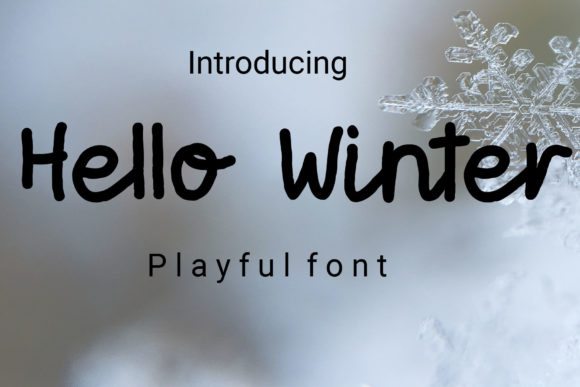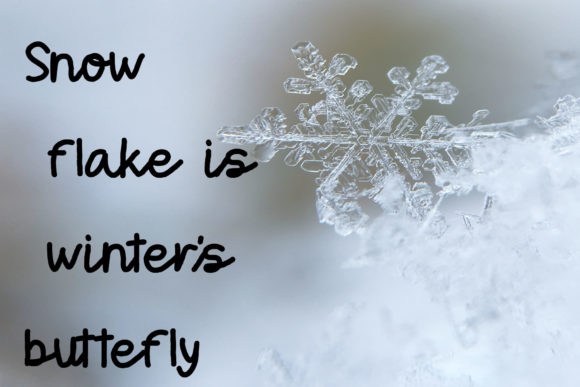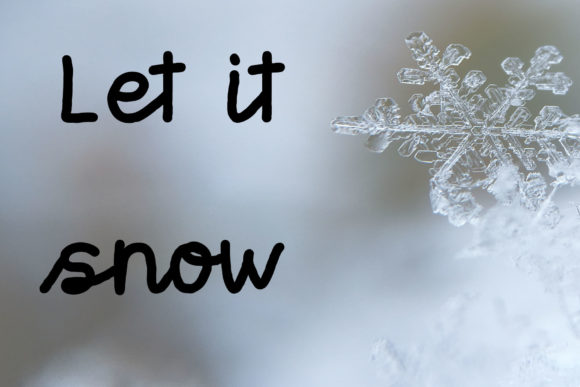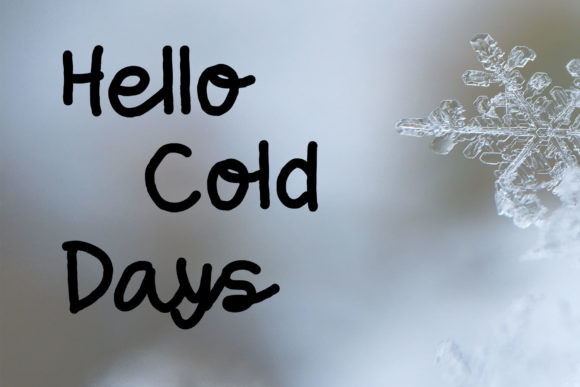
About Hello Winter Font
Hello Winter is a cute and simple lettered handwritten font that can be used for all chalkboard quotes or teaching material! Its authentic look will add a personal and realistic feel to your designs.